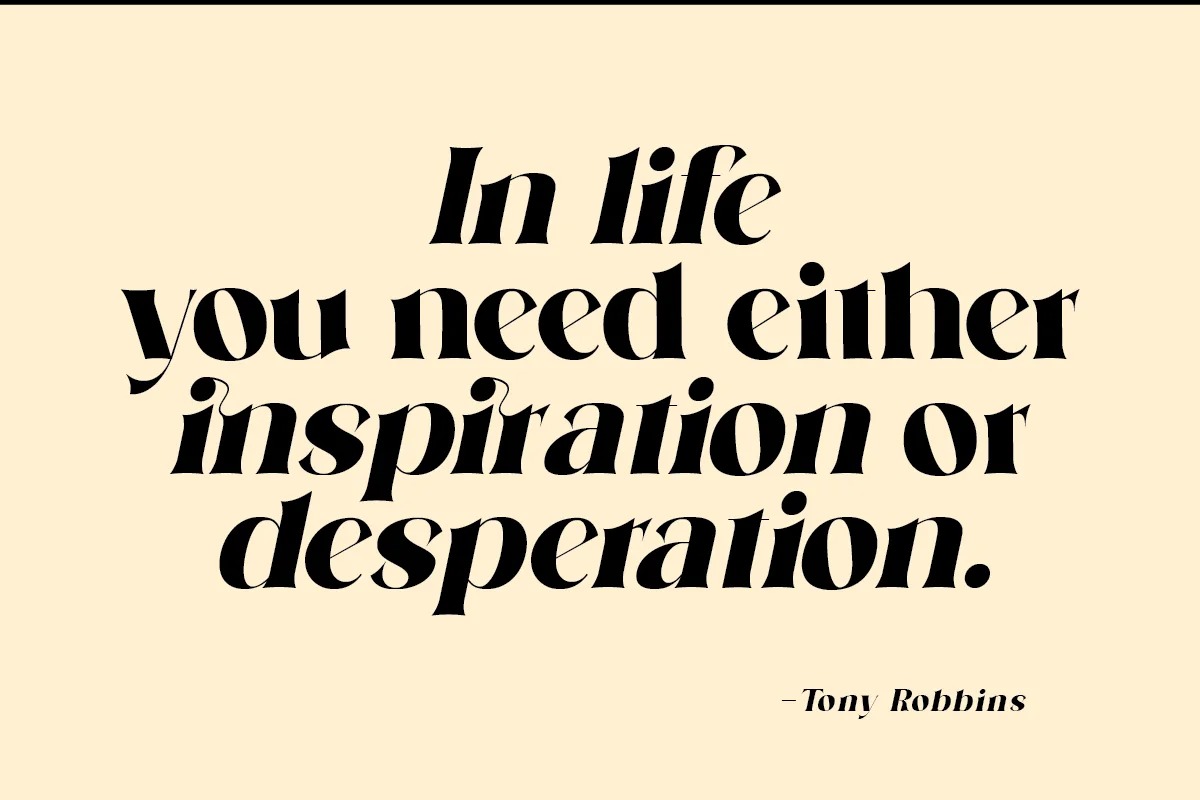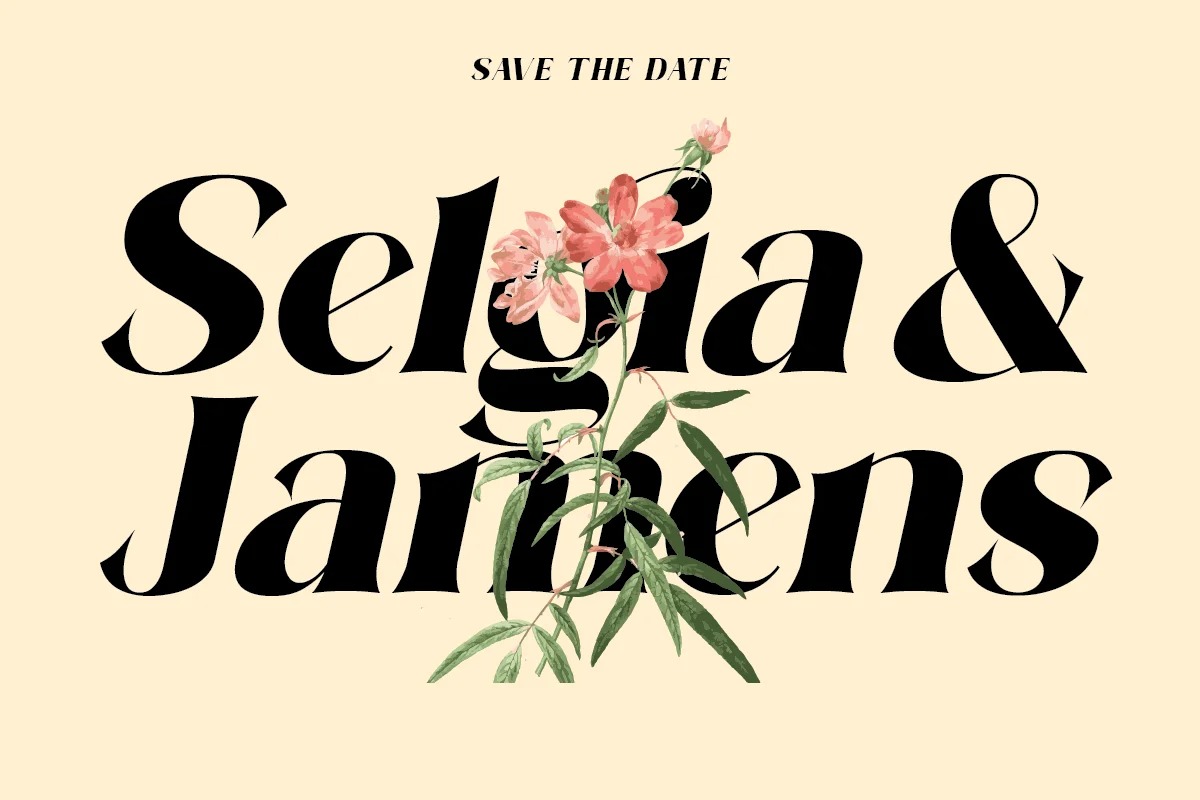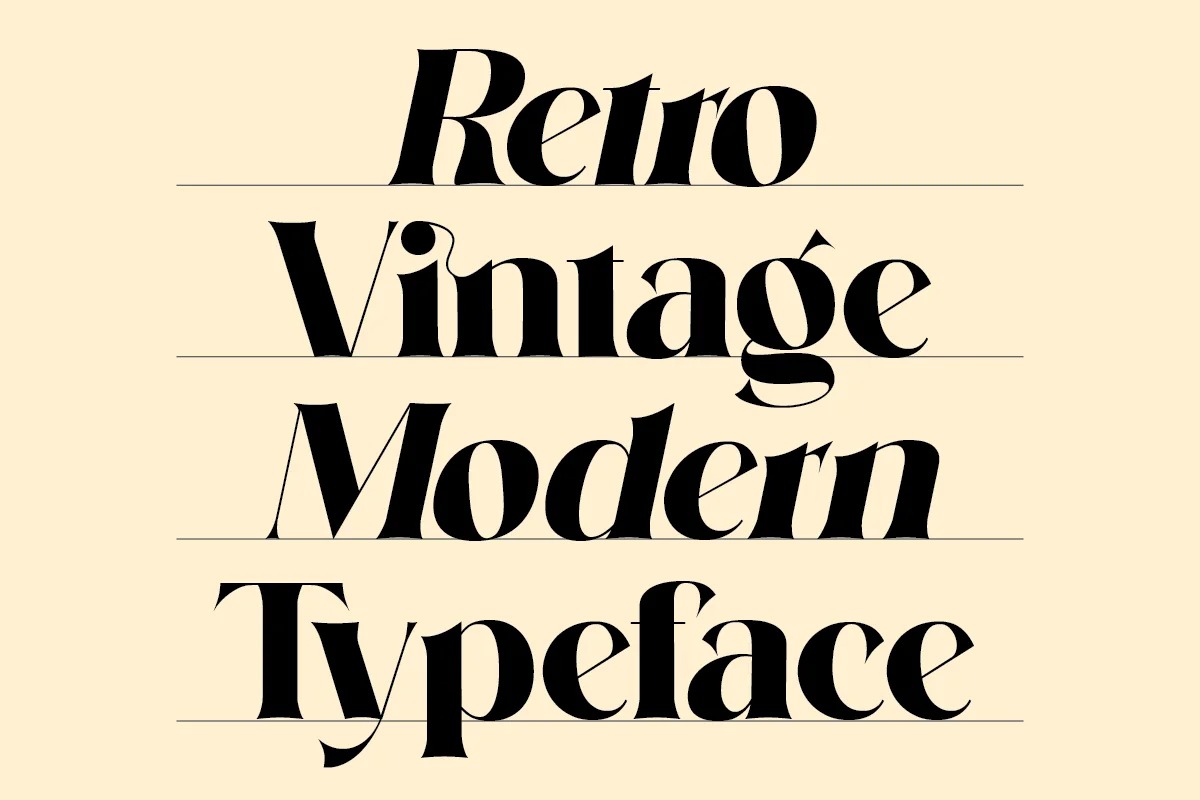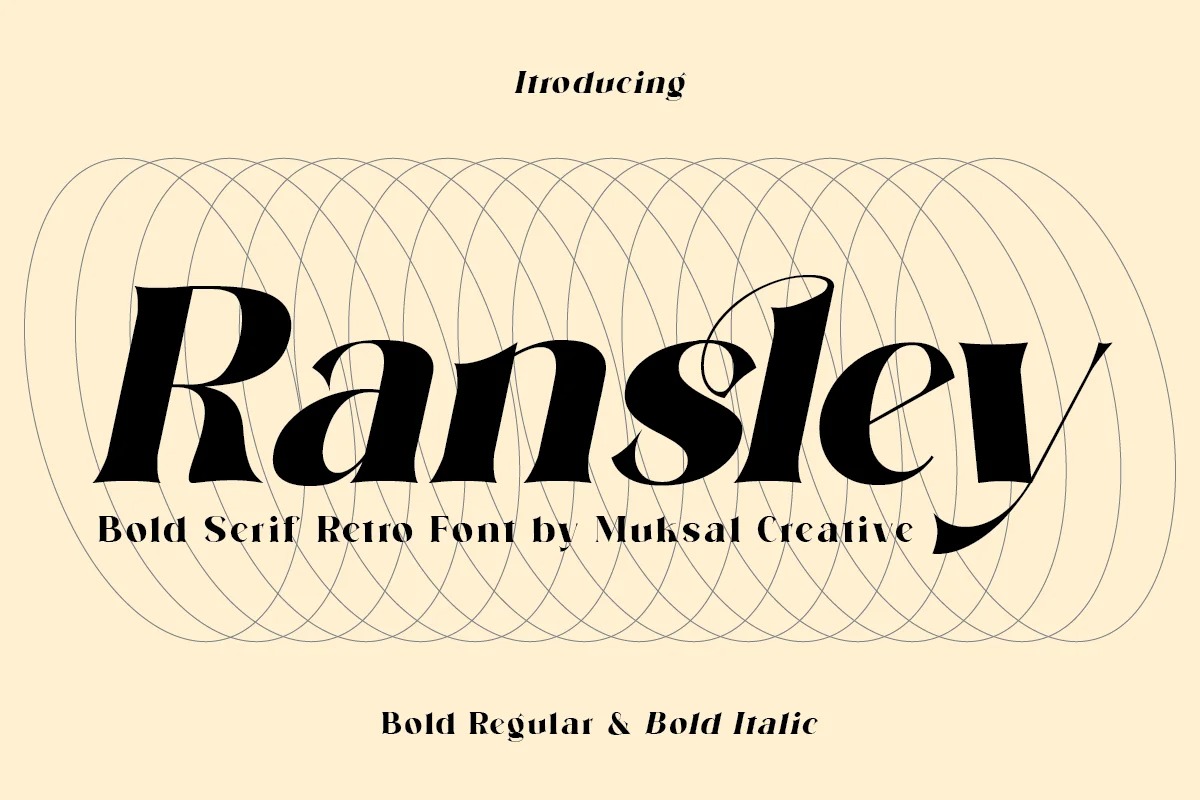
Ransley Font
Ransley Serif Font comes with an aesthetic style, and its serif-type tagline is Vintage and elegant. It’s a very versatile font that works great in large and small sizes. Perfect for editorial projects, Logo design, Clothing Branding, product packaging, magazine headers, or simply as a stylish text overlay to any background image.